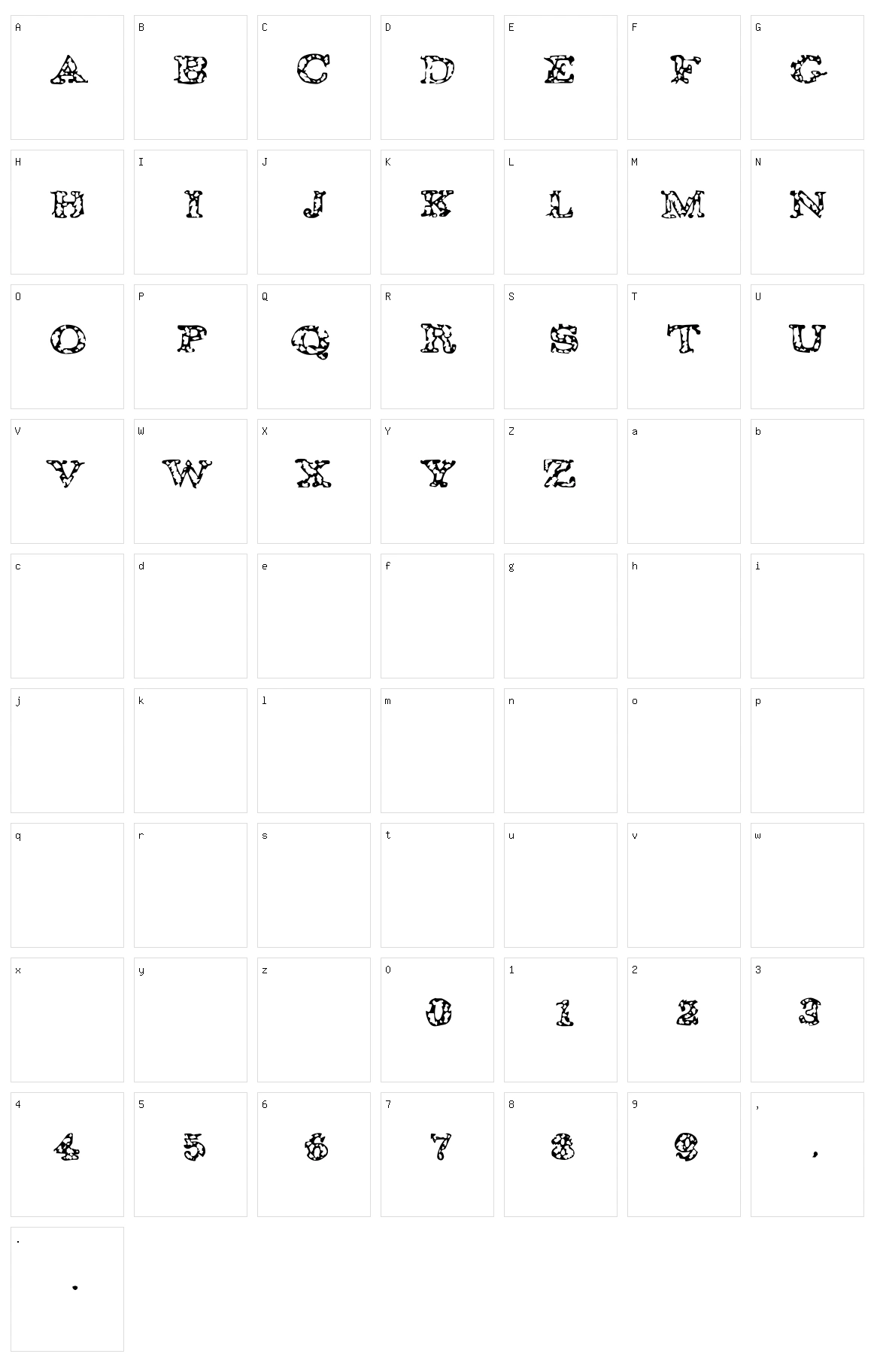
The free font Gaza is carefully designed by PCRF Palestine Children's Relief fund, showcasing a thoughtful balance of creativity and usability and falls under the Eroded font style. When you download the ZIP file, it contains only 57.78 KB of font files, making it lightweight and quick to download. Please review the license details below to understand permitted usage and distribution rights. If license information is not available, we recommend using this font for personal projects only or contacting the author directly for commercial usage permissions.